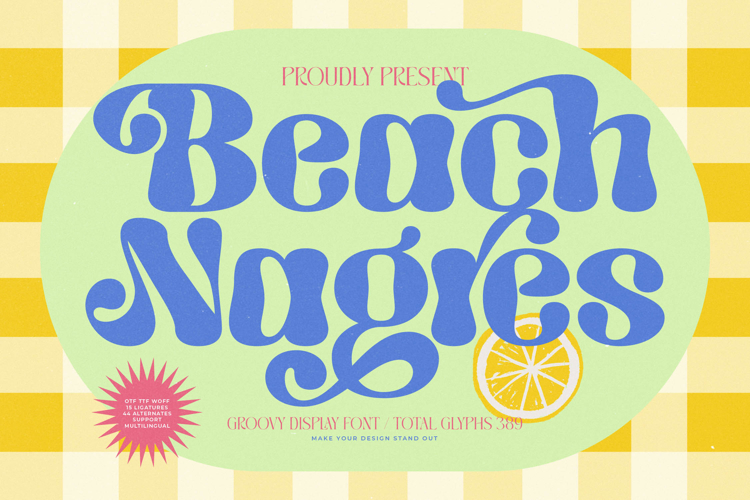
Beach Nagres - Groovy Display Font
Unleash the spirit of summer nostalgia and high-impact design with Beach Nagres - Groovy Display Font. This bold display typeface perfectly channels the effortless style of the 1970s, offering sweeping curves and fluid movement that instantly captivate the viewer. It is the definitive choice for designers seeking a truly expressive and memorable headline presence, blending vintage charm with modern typographic functionality.